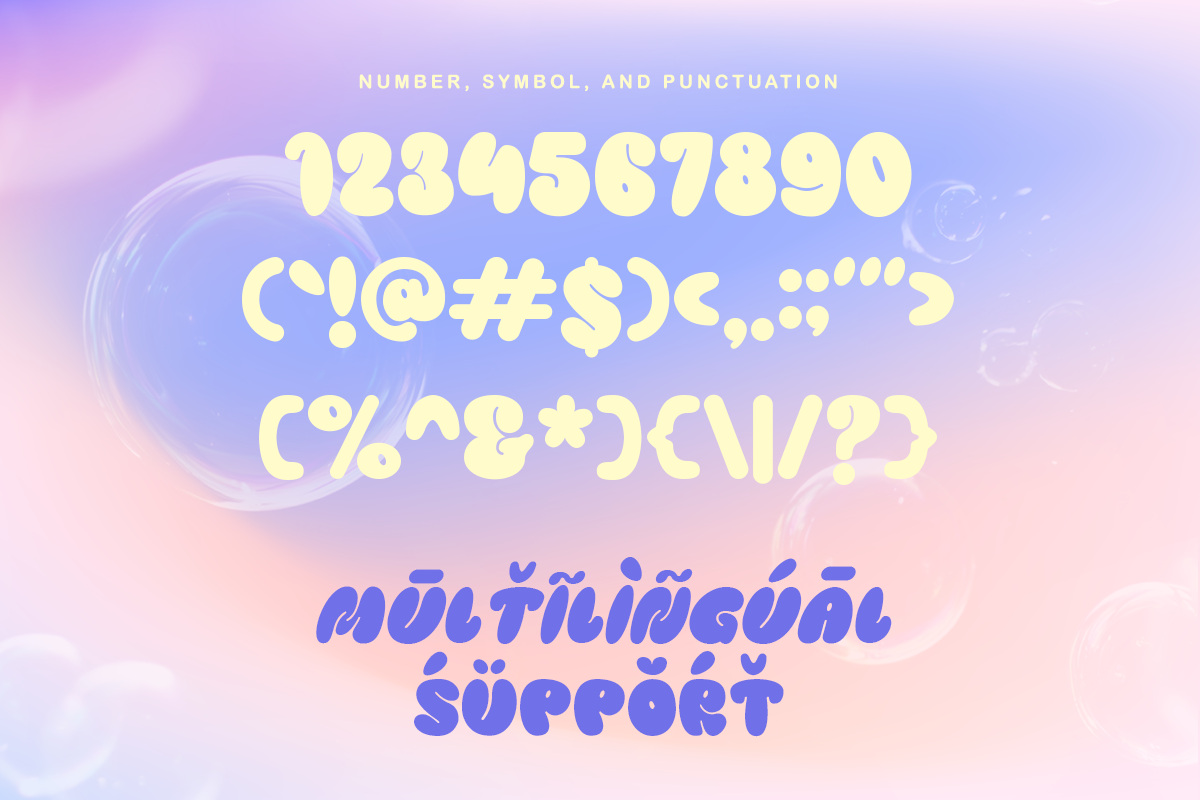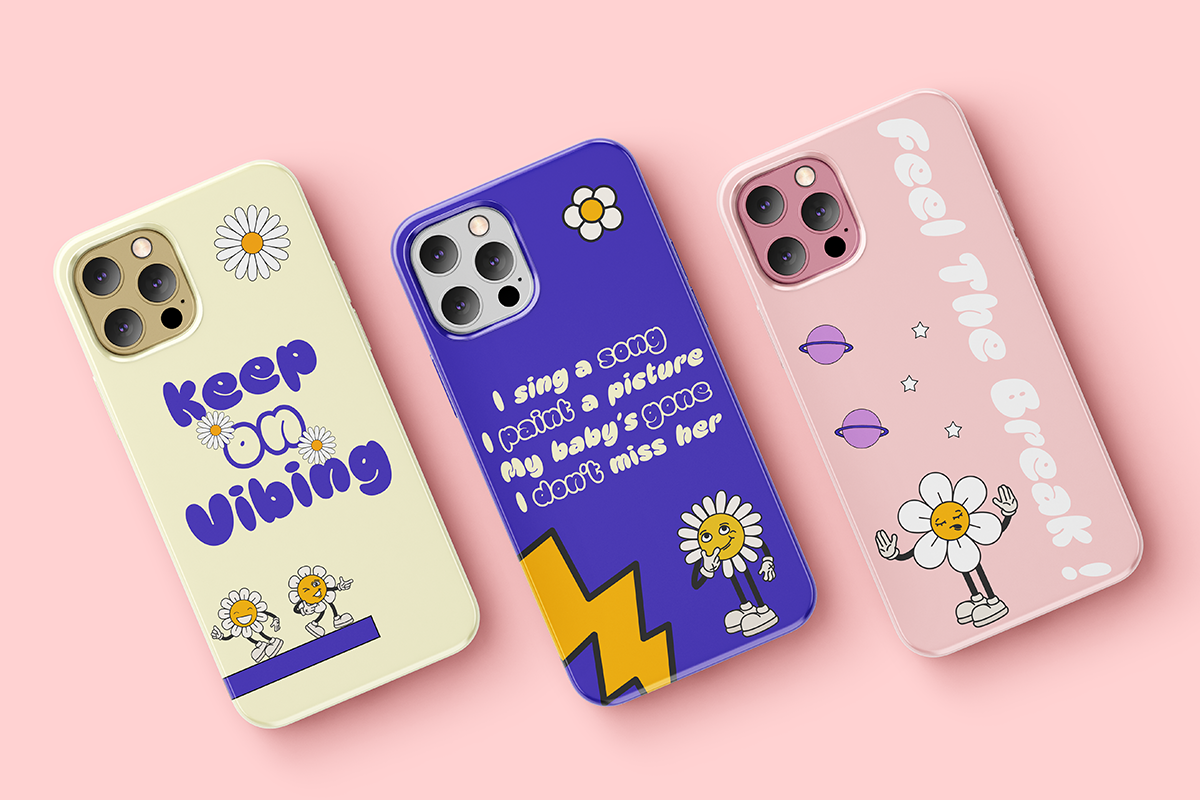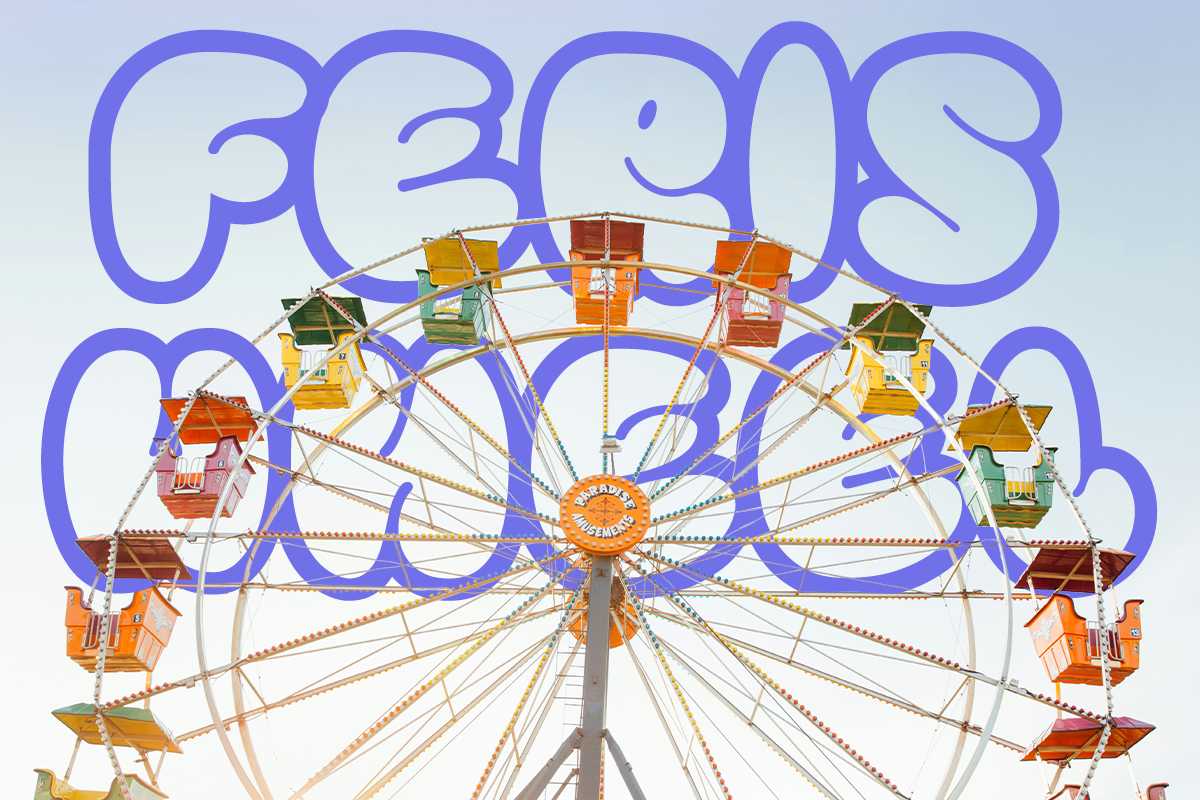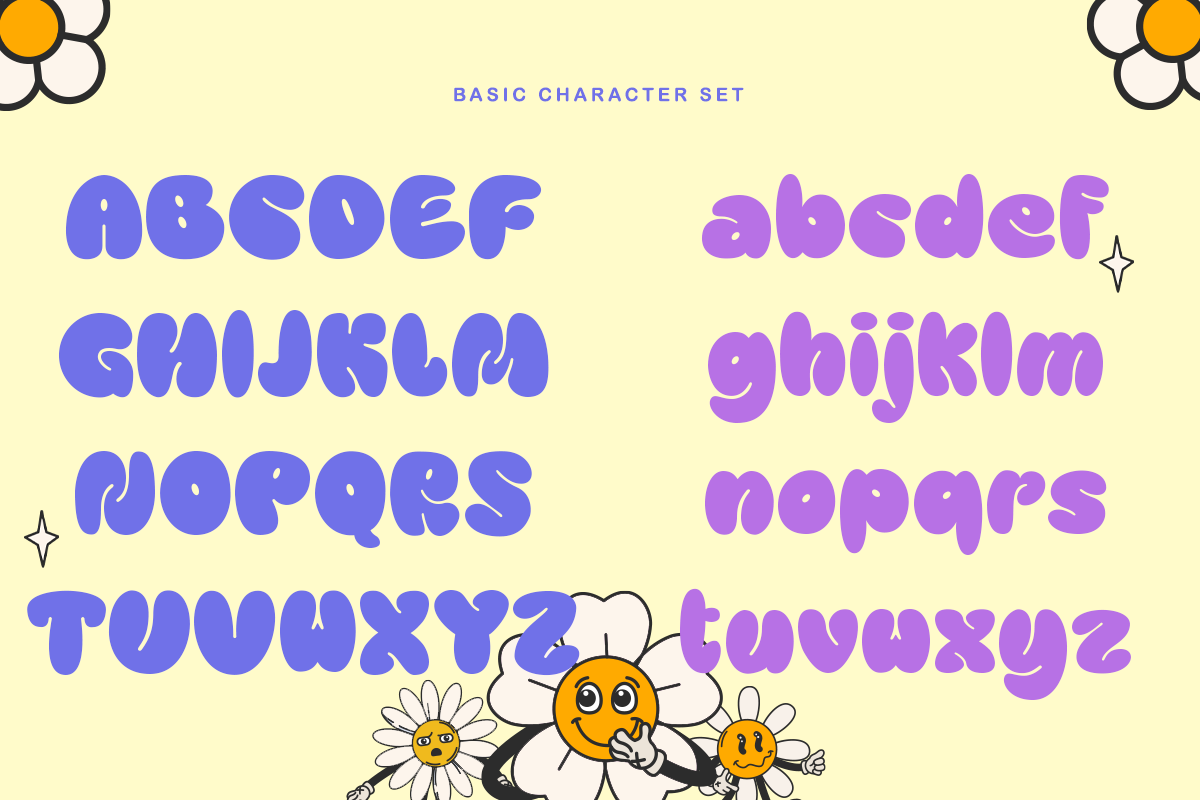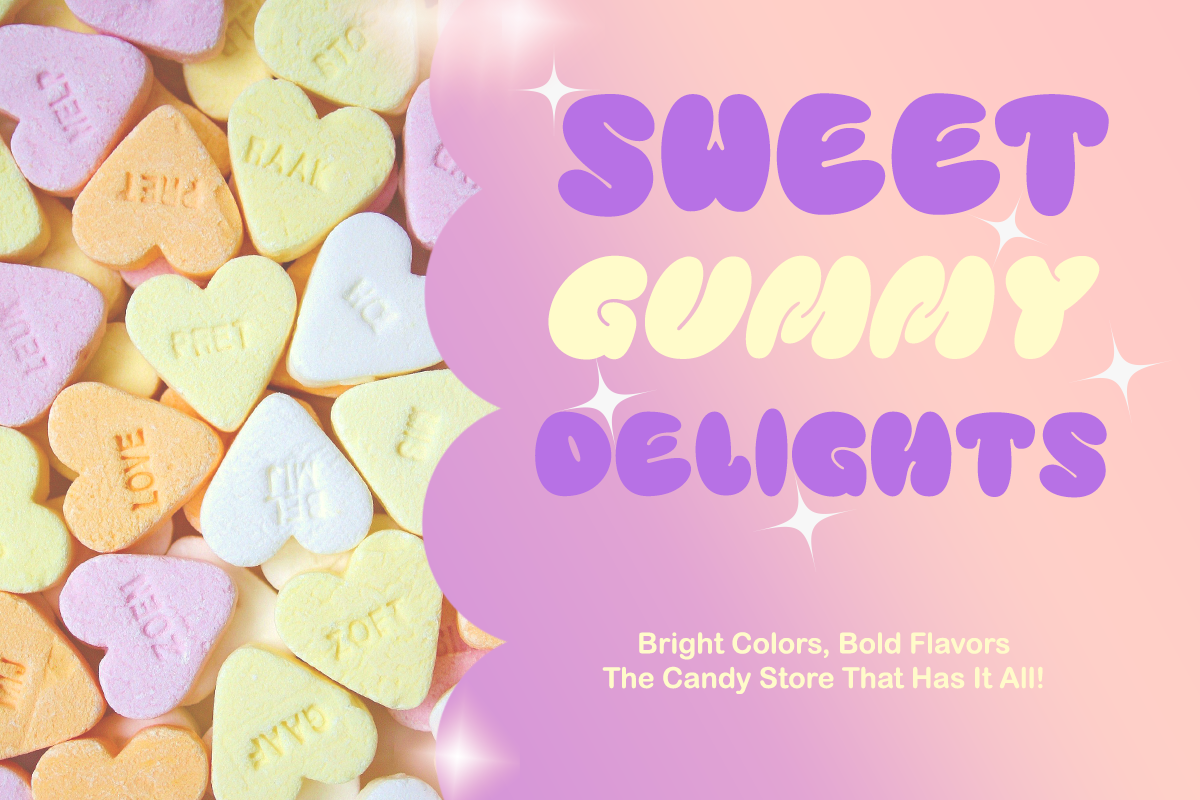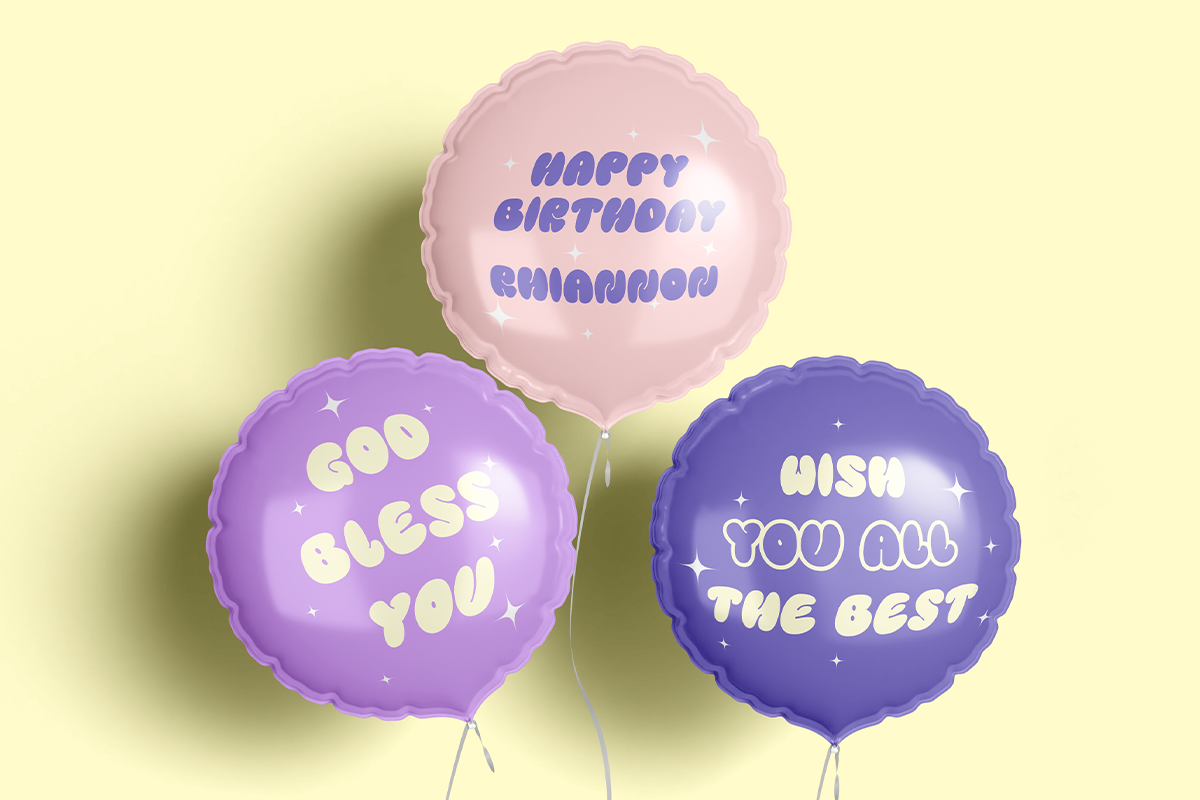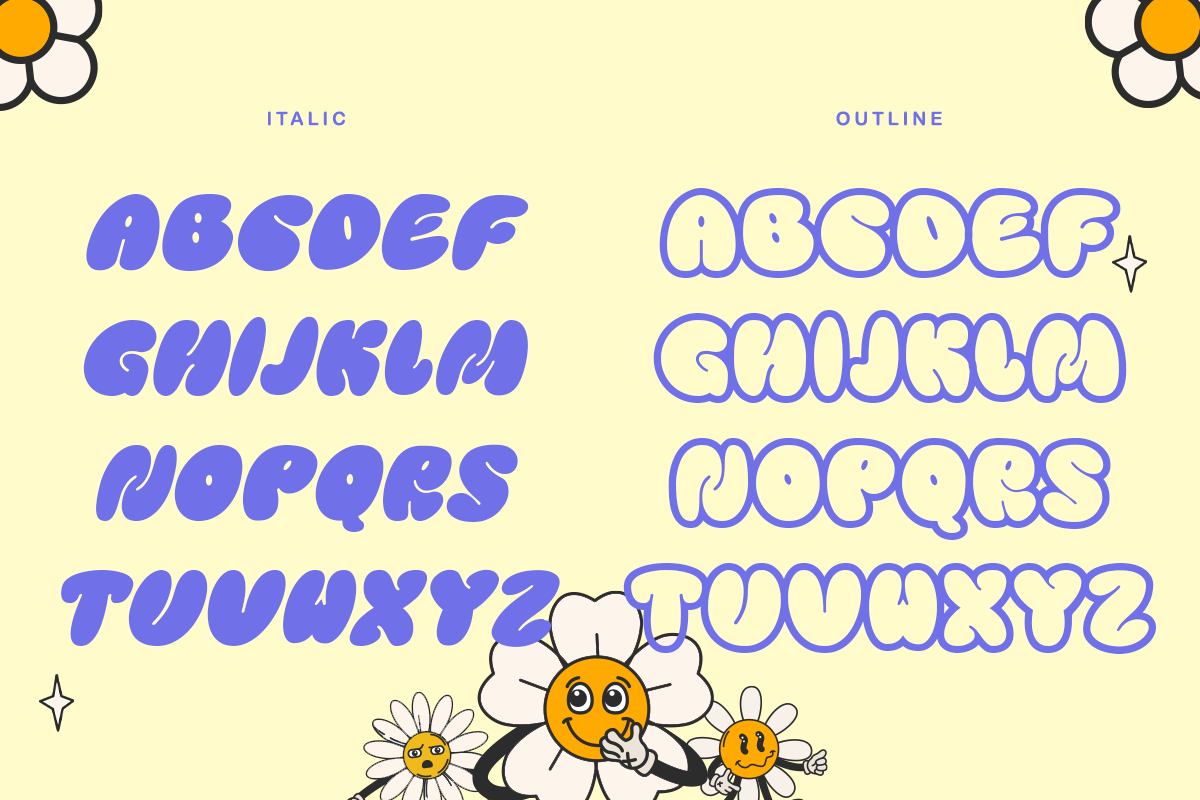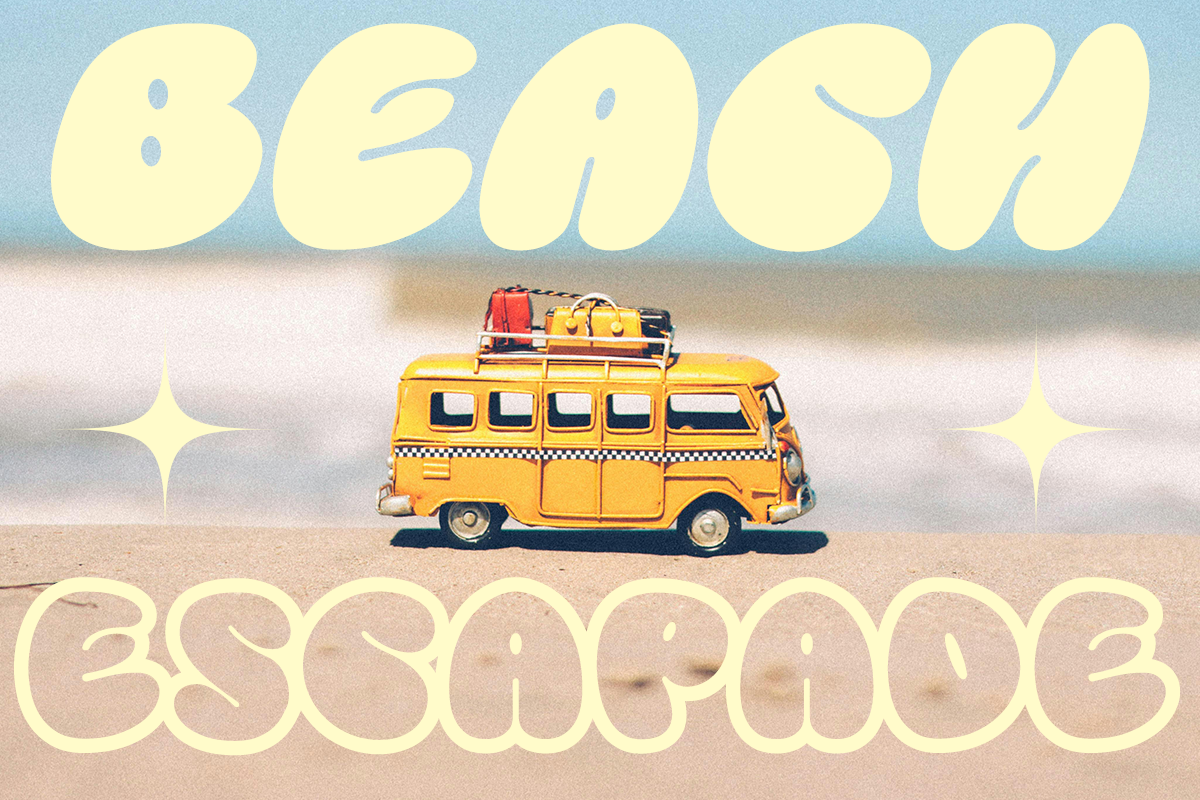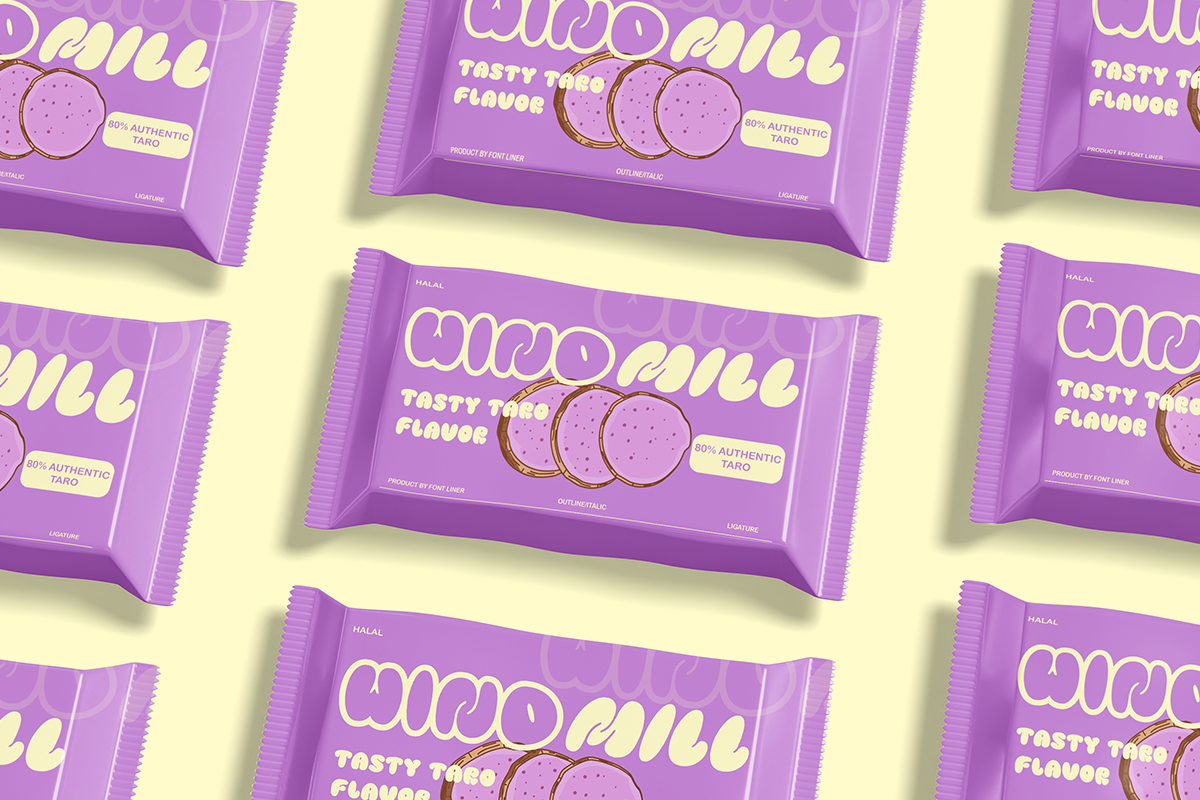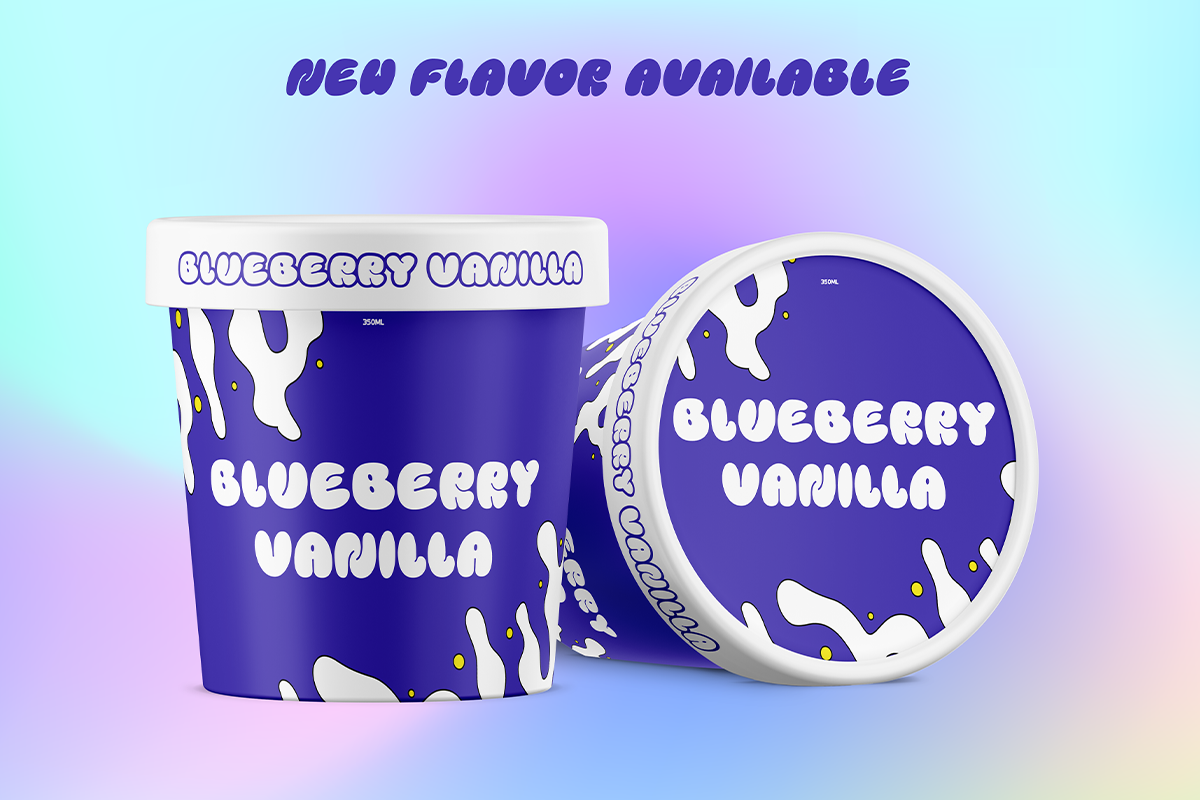
Playful Bubble
Introducing Playful Bubble Font. With Visually Interesting and Cool Typography. It’s Perfect for Your Design Projects Such as Logos, Advertising, Branding, Posters, Banners, Product Designs, Art Quotes, Special Events, Product Packaging, and More.